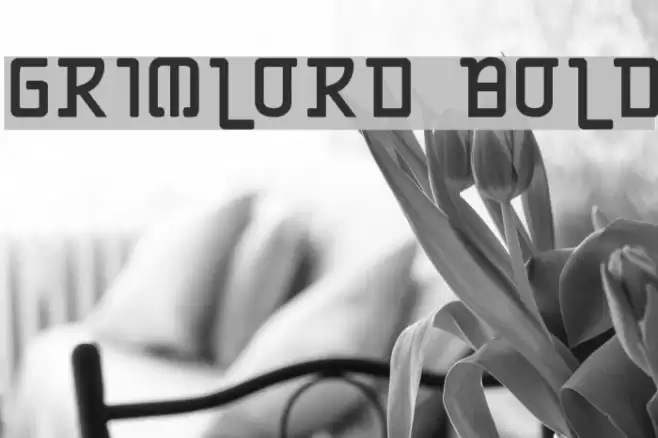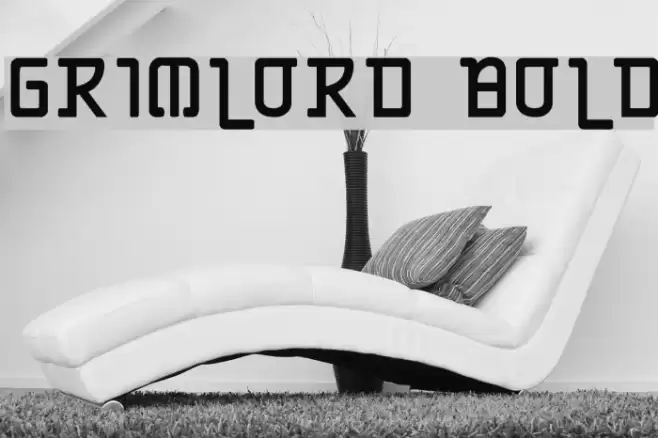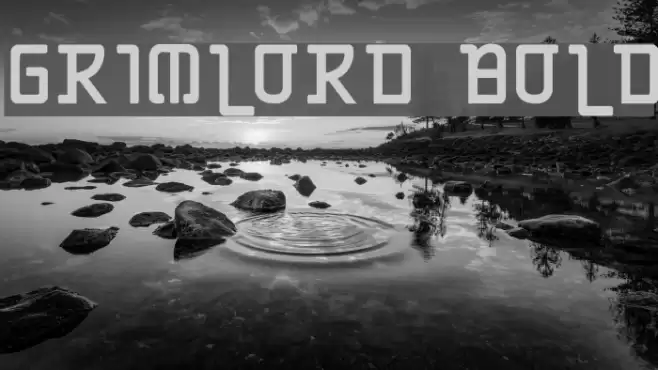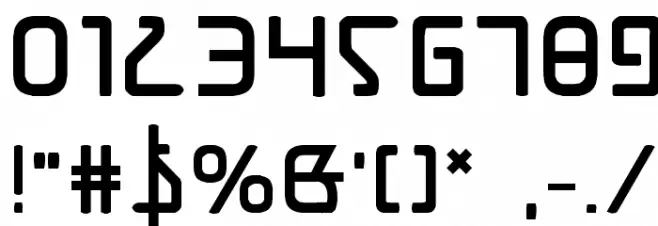
Grimlord Bold Font
Grimlord Bold Description
This font features a bold and futuristic design with geometric shapes and sharp edges. The characters are constructed with a consistent stroke width, giving it a uniform appearance. The uppercase and lowercase letters share a similar structure, enhancing the cohesive look. The numbers and special characters maintain the same bold style, making them stand out. This font is ideal for projects that require a modern and edgy aesthetic, such as technology-related branding or sci-fi themed designs.
A bold, futuristic font with geometric shapes and sharp edges from Uncategorized fonts.
- Proposed Projects: Ideal for technology branding, sci-fi themes, video game titles, and modern posters.